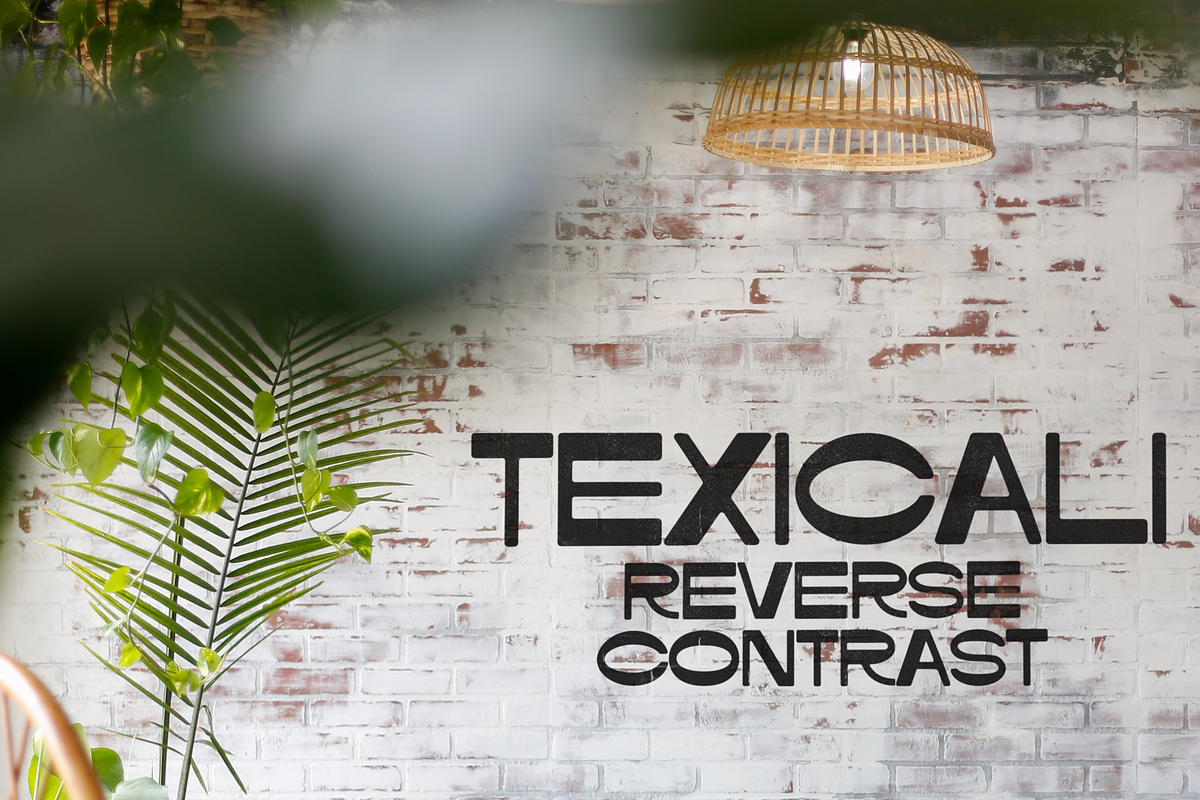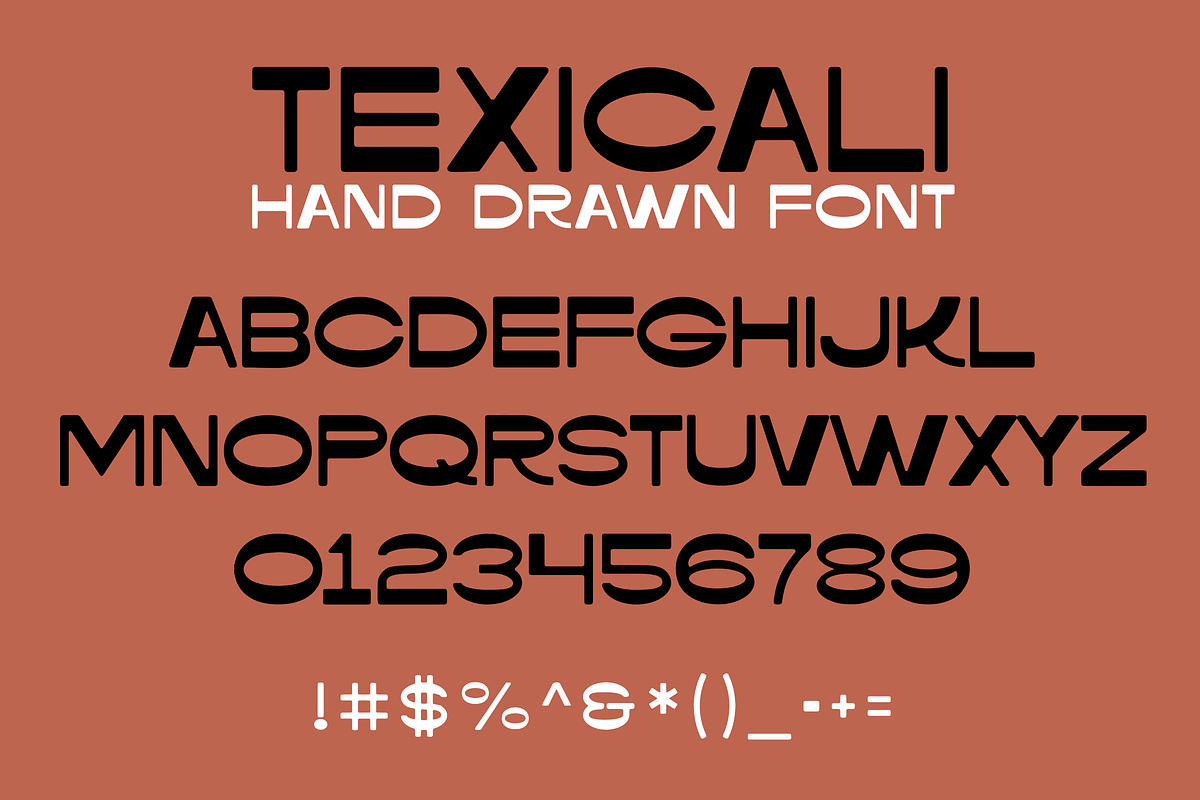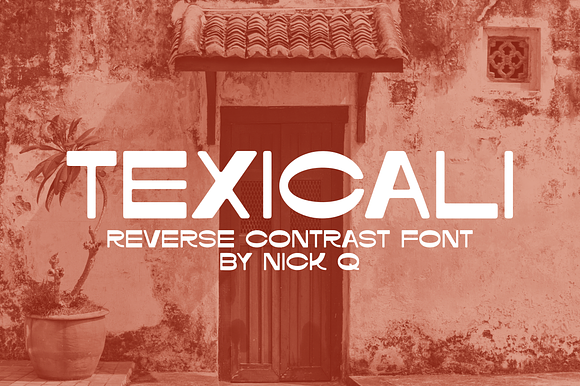
Texicali Reverse Contrast Font
- TexicaliFont Reverse Contrast
Why Texicali Reverse Contrast Font is worth a look
Texicali Reverse Contrast Font by nickqtx fits naturally into Branding, posters, packaging, typography.